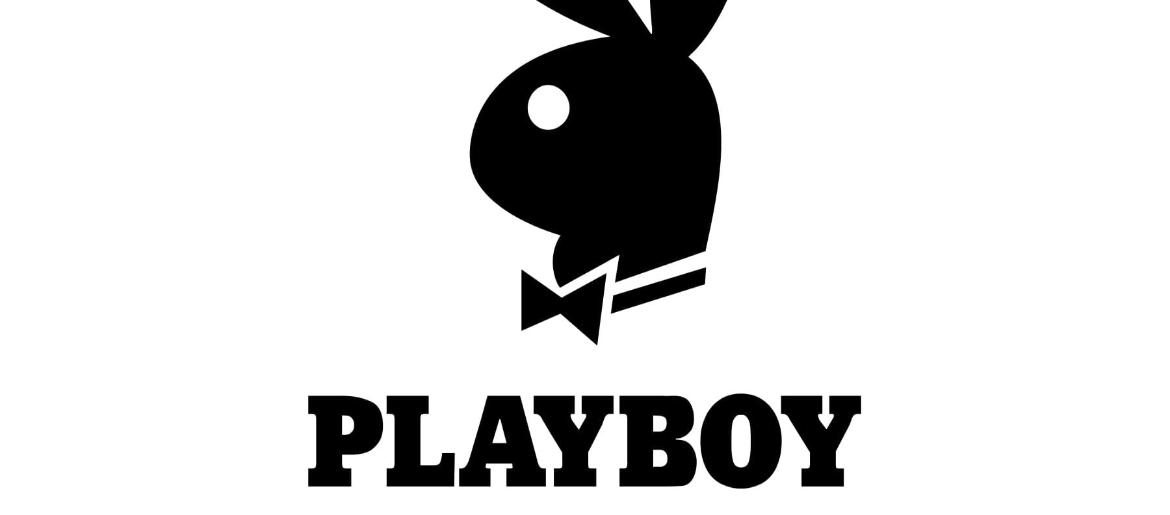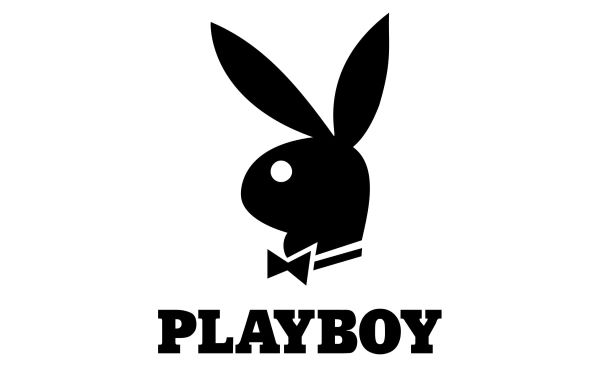
Playboy Font
What is The Font Of Playboy?
The Playboy Font is best represented by Playtoy, a free replica typeface created by Sharkshock Fonts. This playful, bold serif style captures the iconic look of the classic Playboy logo, offering a clean, instantly recognizable aesthetic suitable for creative or nostalgic design work.